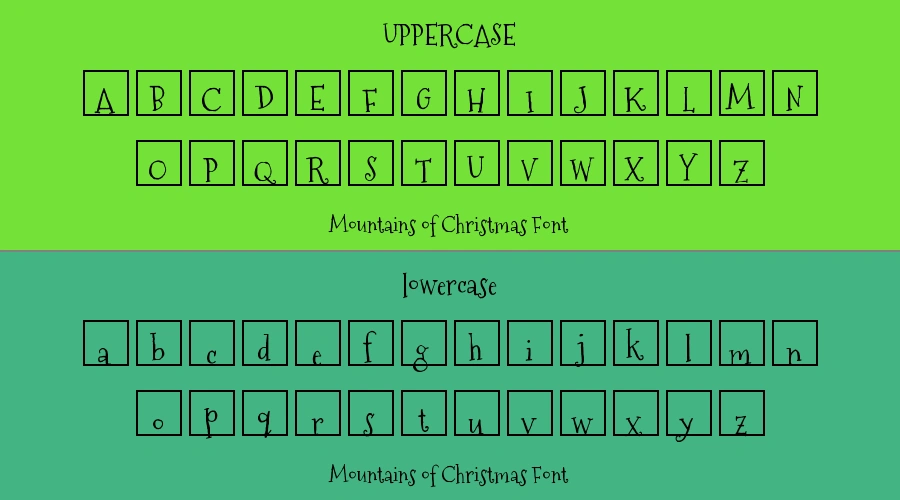
About Mountains of Christmas Font
Designed with precision, Mountains of Christmas Font merges expressive curves with memorable presence in every character. This versatility makes it particularly effective for packaging hero, where endurance and market confidence directly impact communication quality. Each letterform demonstrates meticulous craftsmanship.
Technical excellence shines through elements like exaggerated serifs and lining figures, enhancing typographic versatility. In footnotes settings, Mountains of Christmas Font proves its worth through superior multi-color registration. The thoughtful execution of stroke contrast and aspirational quality ensures professional results.